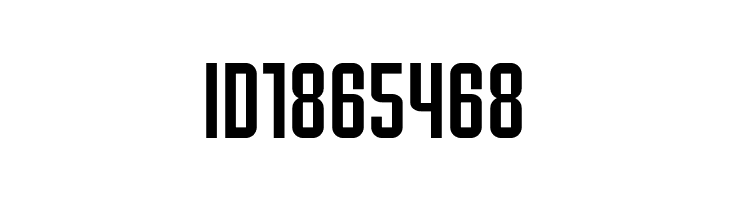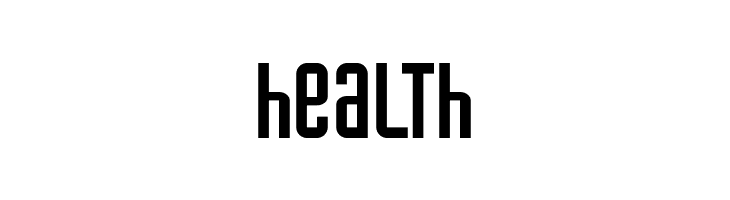
• Beo
• Beo Bold
• Beo Bold Italic
• Beo Italic
• Beqo Regular
( M. Ilham Maulana )
A bold, geometric font with a modern and slightly retro aesthetic.
• Berlin Email
A tall, narrow, and modern font with a clean, sleek design.
• Berlin Email
A tall, narrow font with a modern and clean design.
• Berlin Email 2
A tall, narrow, and modern font with clean lines and minimal curves.
• Berlin Email 2
A tall, narrow, and modern font with a sleek and structured appearance.
• Berlin Email Bold
A bold, narrow font with a modern and impactful design.
• Berlin Email Bold
A bold, geometric sans-serif font with tall, narrow letterforms.
• Berlin Email Heavy
A bold, heavy font with thick strokes and uniform width, perfect for impactful designs.
• Berlin Email Heavy
A bold, condensed font with thick strokes and a modern geometric style.
• Berlin Email Linie
A modern, geometric font with outlined characters and a cohesive design.
• Berlin Email Outline
( Fonts by Peter Wiegel - www.peter-wiegel.de )
A bold, outlined font with a modern yet retro aesthetic, ideal for impactful designs.
• Berlin Email Outline
A bold, outlined font with a modern and geometric style.
• Berlin Email Regular
A tall, narrow, and modern typeface with a clean aesthetic.
• Berlin Email Schaddow
A bold, shadowed font with a modern, three-dimensional look.
• Berlin Email Semibold Bold
A bold, modern font with tall, narrow characters and a sleek design.
• Berlin Email Semibold Bold
A bold, modern font with tall, narrow characters and a strong vertical emphasis.
• Berlin Email Serif
A bold, high-contrast serif font with strong vertical strokes and elegant serifs.
• Berlin Email Serif